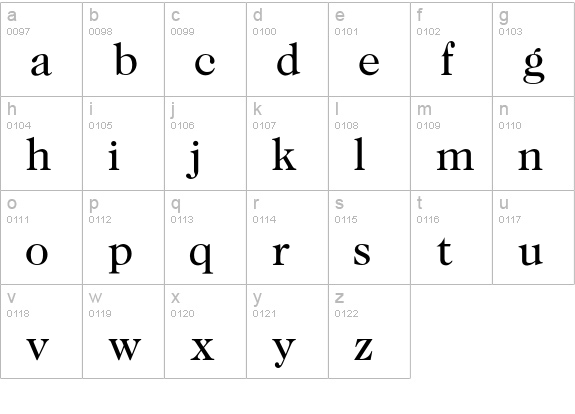
CaslonBook Font Details
CaslonBook is a classic serif font that exudes elegance and sophistication. With its timeless design and perfect balance of traditional and modern elements, CaslonBook is a versatile typeface suitable for a wide range of projects. Its subtle serifs and graceful curves make it a favorite choice for editorial design, branding, and print materials. What sets CaslonBook apart is its remarkable legibility and readability, making it a top choice for long passages of text. Whether used in books, magazines, or websites, CaslonBook ensures a comfortable reading experience for readers of all ages. Best of all, CaslonBook is available for free download at FontsMarket.com, allowing designers and creatives to access this premium font without any cost. Don't miss out on the opportunity to elevate your projects with the timeless beauty of CaslonBook. Download it today and see the difference it can make in your designs.